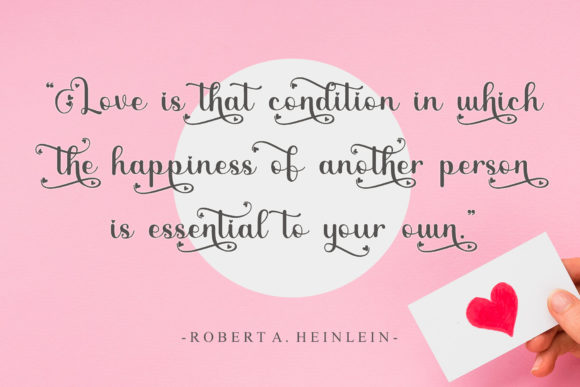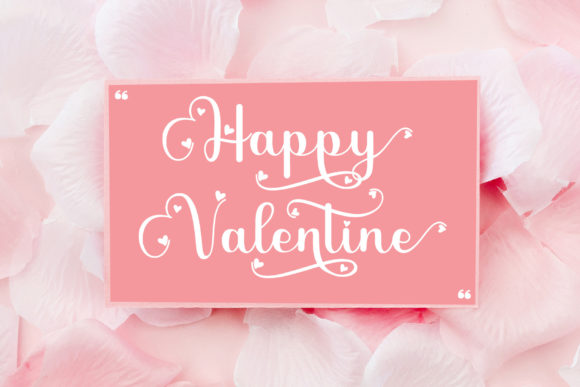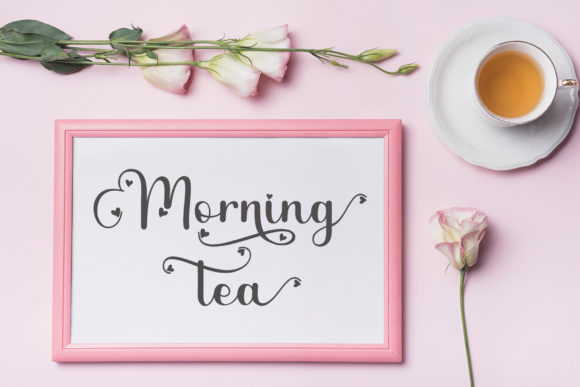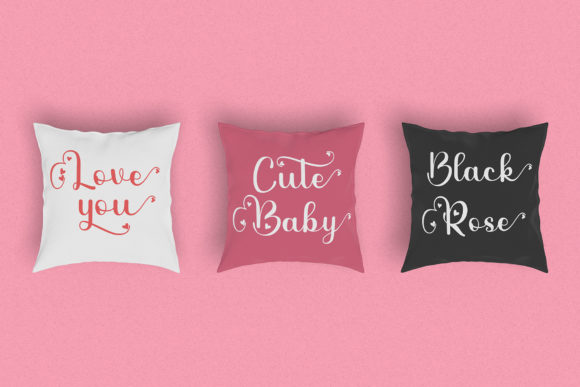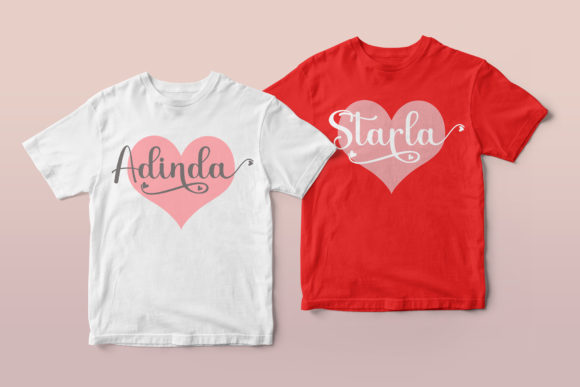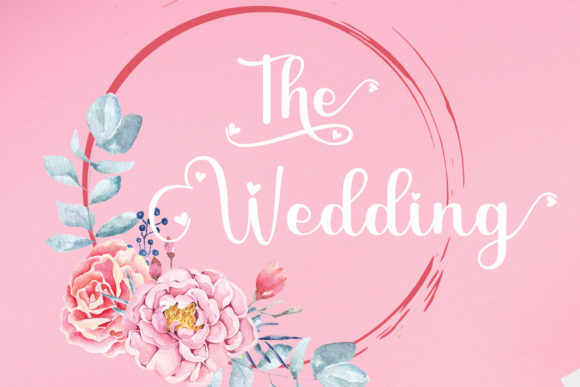
Introducing Besthie Font: The Epitome of Romantic and Graceful Calligraphy
In the world of typography, few fonts capture the essence of romance and elegance as beautifully as Besthie Font. This stunning calligraphy typeface is designed to make your designs dance with its gracefully curved characters that seem to float along the baseline. Besthie Font is not just a font; it’s an expression of sophistication and charm that can elevate your creative projects to new heights. Whether you’re a designer looking for the perfect typeface for your next client’s wedding invitation or a crafter seeking a stylish font for your handmade products, Besthie is the ideal choice.
What Makes Besthie Font Stand Out?
Besthie Font boasts several distinctive features that set it apart from other calligraphy typefaces:
- Romantic and Graceful Design: Each character in Besthie Font is meticulously crafted to exude a sense of romance and elegance. The fluid strokes and delicate curves make it perfect for designs that require a touch of sophistication.
- Versatility: The versatility of Besthie Font is one of its most compelling attributes. It can be used for a wide range of purposes, including logos, wedding invitations, headings, t-shirts, letterhead, signage, labels, news, posters, badges, and much more.
- Unique Character Dance: The characters in Besthie Font have a unique way of dancing along the baseline, adding a dynamic and playful touch to your designs.
Besthie Font is a dream come true for designers and crafters who strive to create visually stunning and emotionally resonant projects. Here are some ways you can use Besthie Font to enhance your work:
For Designers:
- Wedding and Event Planning: Create beautiful wedding invitations, save-the-date cards, and event posters that set the tone for a memorable occasion.
- Branding and Logos: Use Besthie Font to craft elegant logos and brand identities that convey a sense of luxury and sophistication.
- Advertising and Marketing: Elevate your advertising and marketing materials with headings and text that capture attention and evoke emotion.
For Crafters:
- Handmade Products: Add a personal touch to your handmade products, such as t-shirts, mugs, and stationery, with beautifully designed text.
- Signage and Labels: Create eye-catching signage and labels for your craft fairs, markets, or online store that reflect your brand’s personality.
- DIY Projects: Use Besthie Font to add a professional and artistic flair to your DIY projects, such as scrapbooking, card making, and journaling.
Tips for Using Besthie Font Effectively
To get the most out of Besthie Font, consider the following tips:
- Pair with Complementary Fonts: Combine Besthie Font with simpler fonts to create contrast and make your designs more readable.
- Experiment with Colors: Play with different colors to find the perfect match for your design. Soft pastels, rich jewel tones, and metallic colors can enhance the romantic feel of Besthie Font.
- Adjust Letter Spacing: Fine-tune the letter spacing to ensure that the dancing characters flow harmoniously and your text remains legible.
Besthie Font is a versatile and elegant calligraphy typeface that can add a touch of romance and sophistication to any design project. Its unique character design, ease of use, and wide range of applications make it an invaluable tool for designers and crafters alike. Whether you’re creating wedding invitations, logos, or handmade products, Besthie Font is sure to inspire your creativity and elevate your work to new heights.